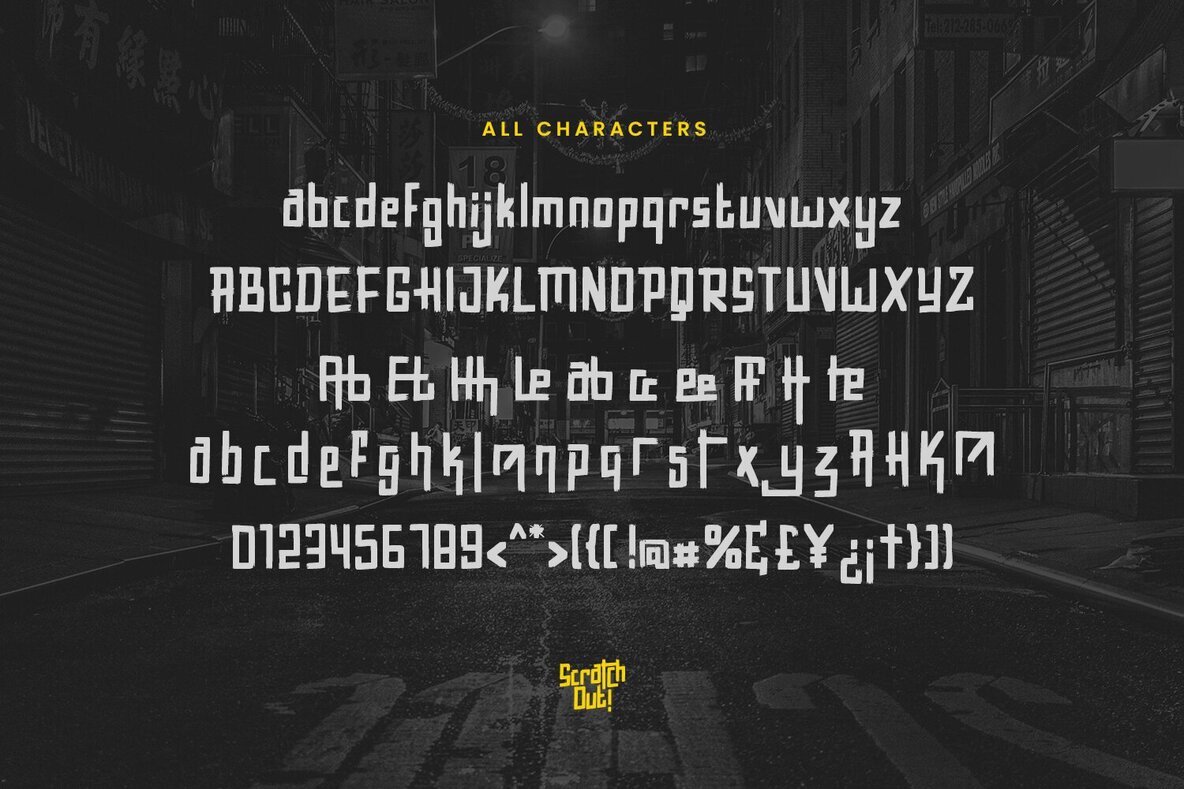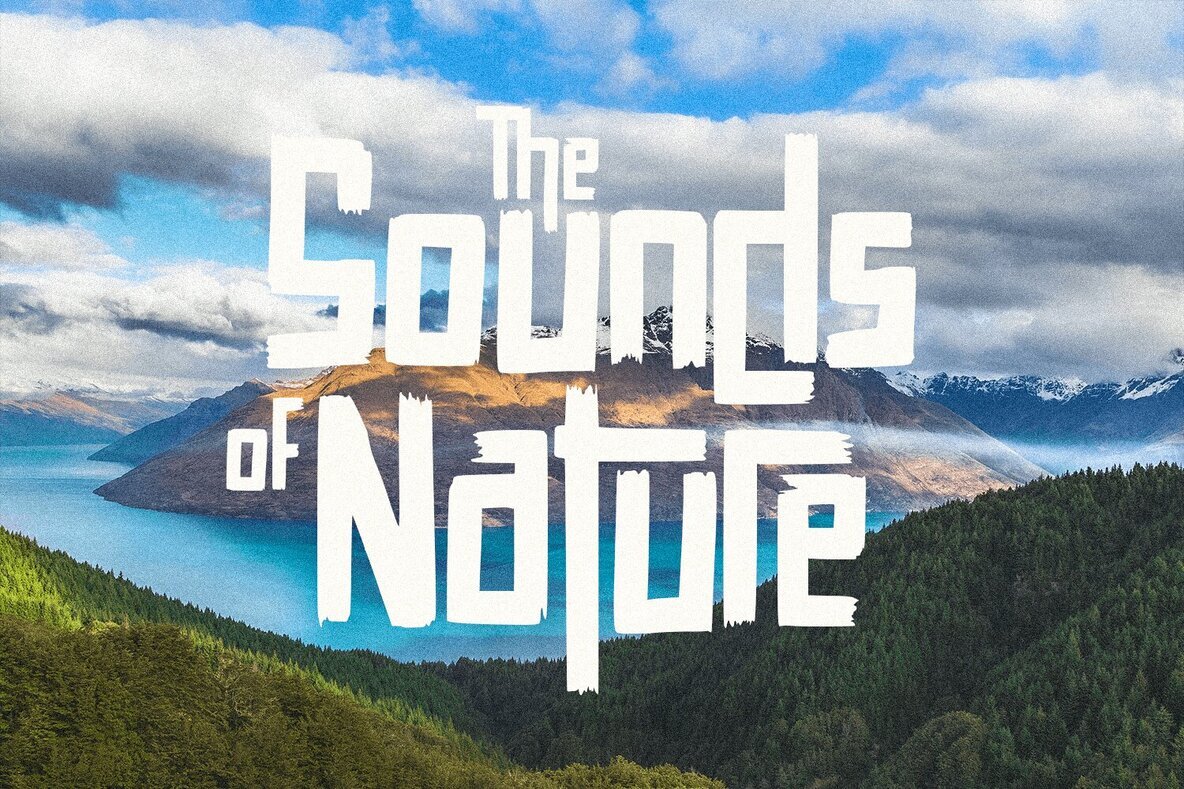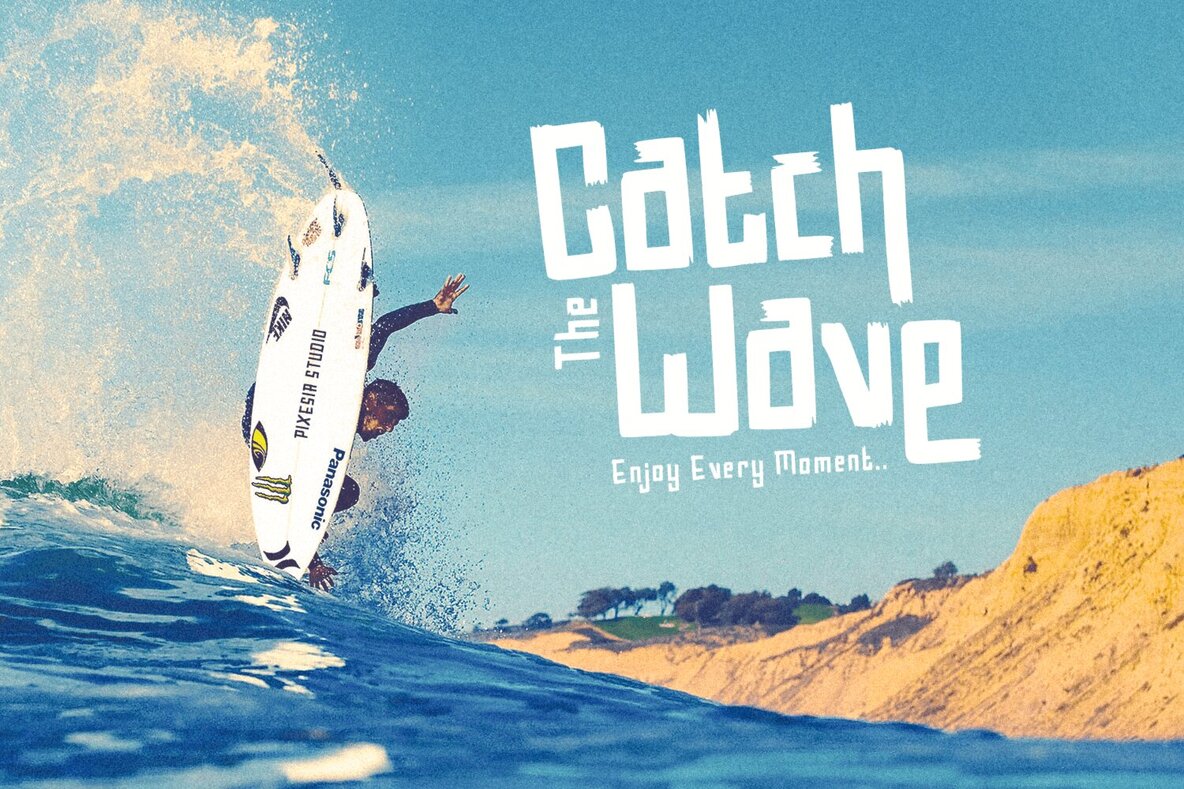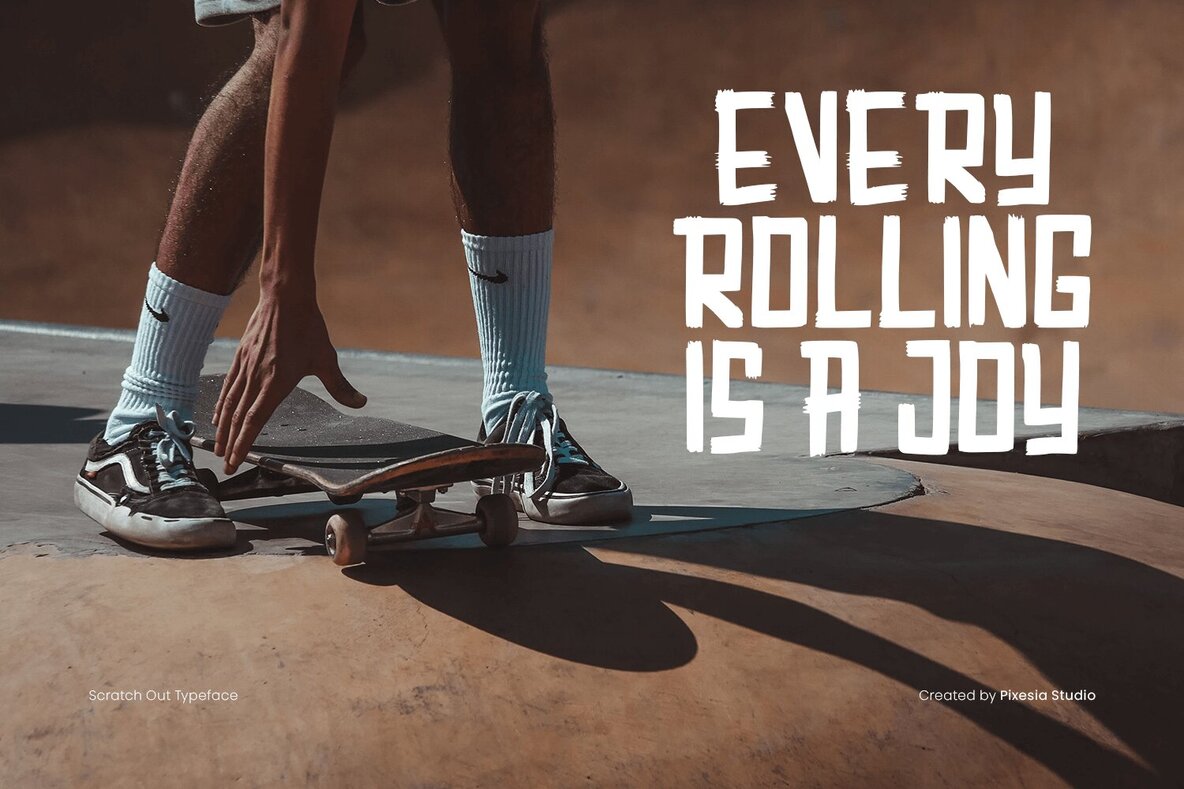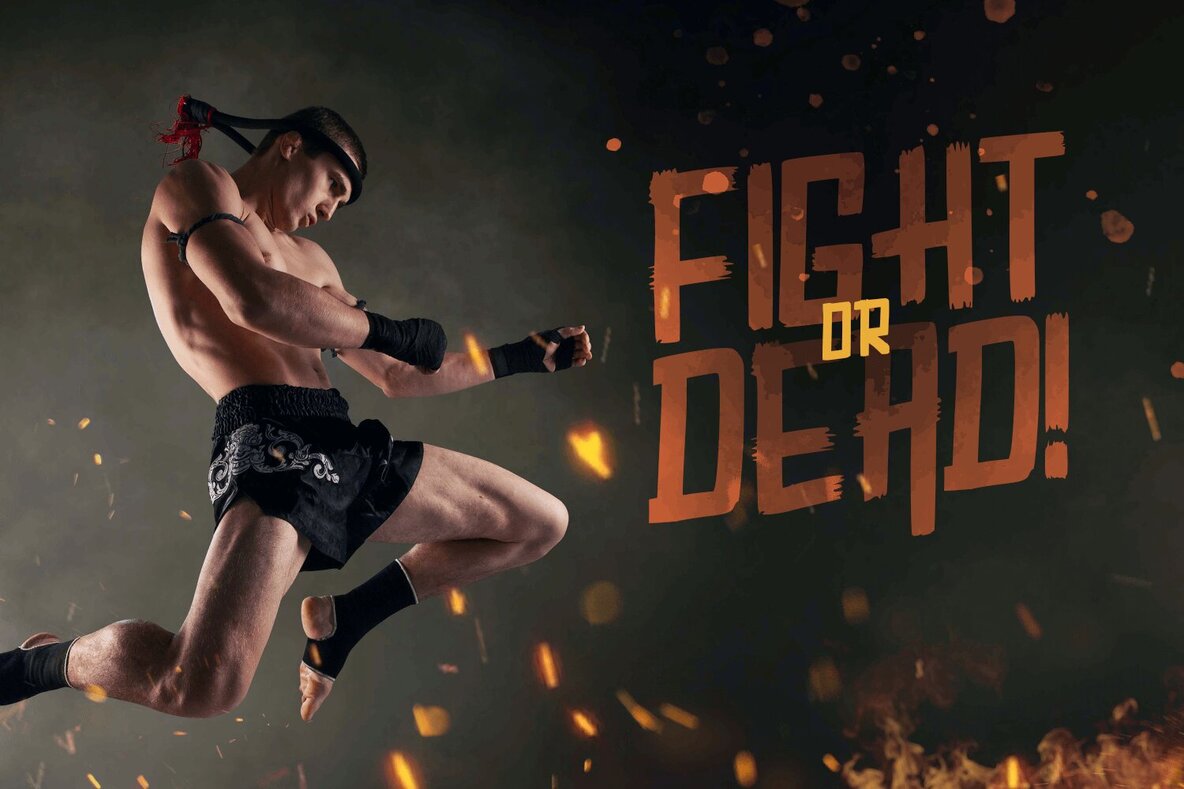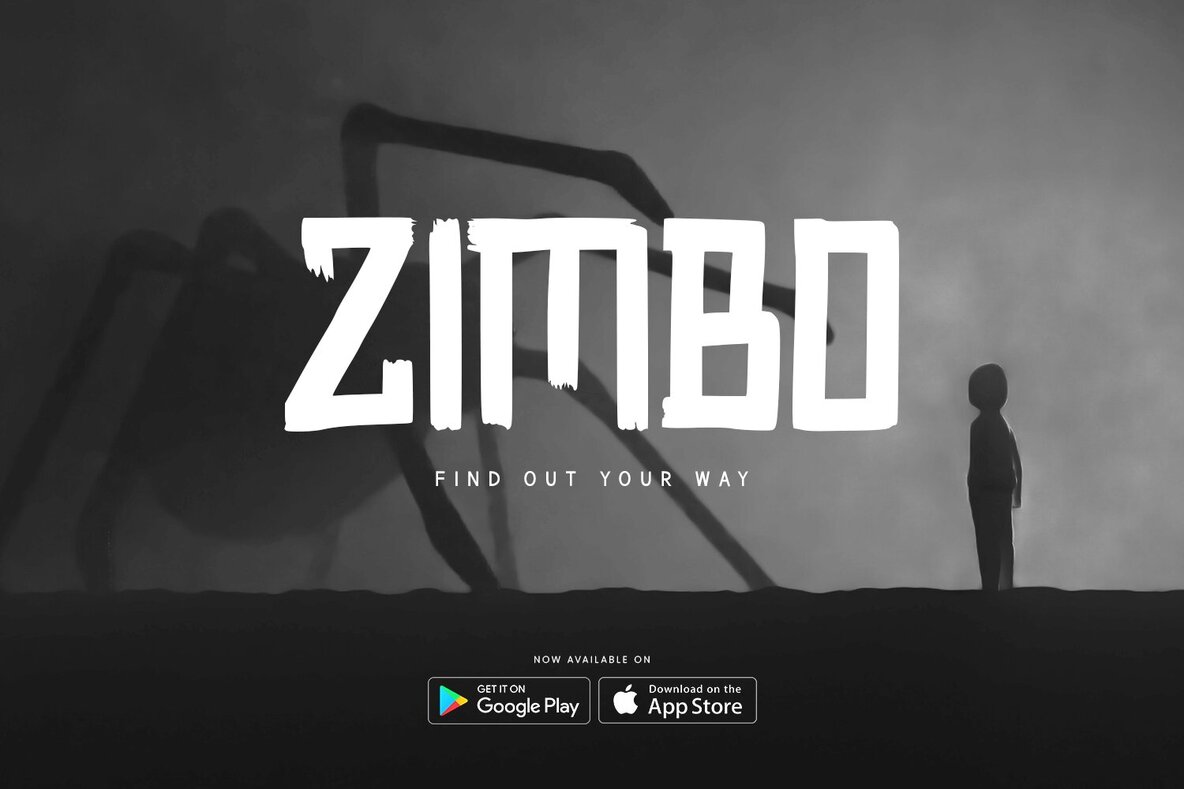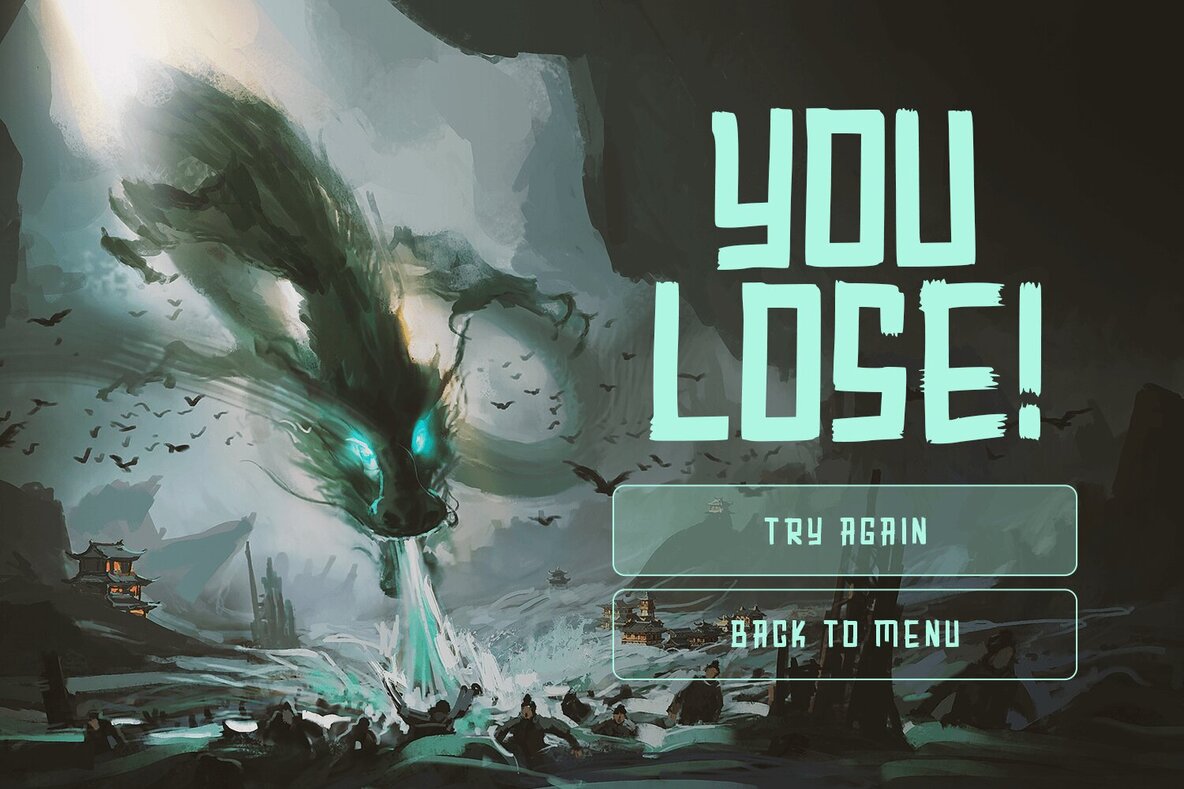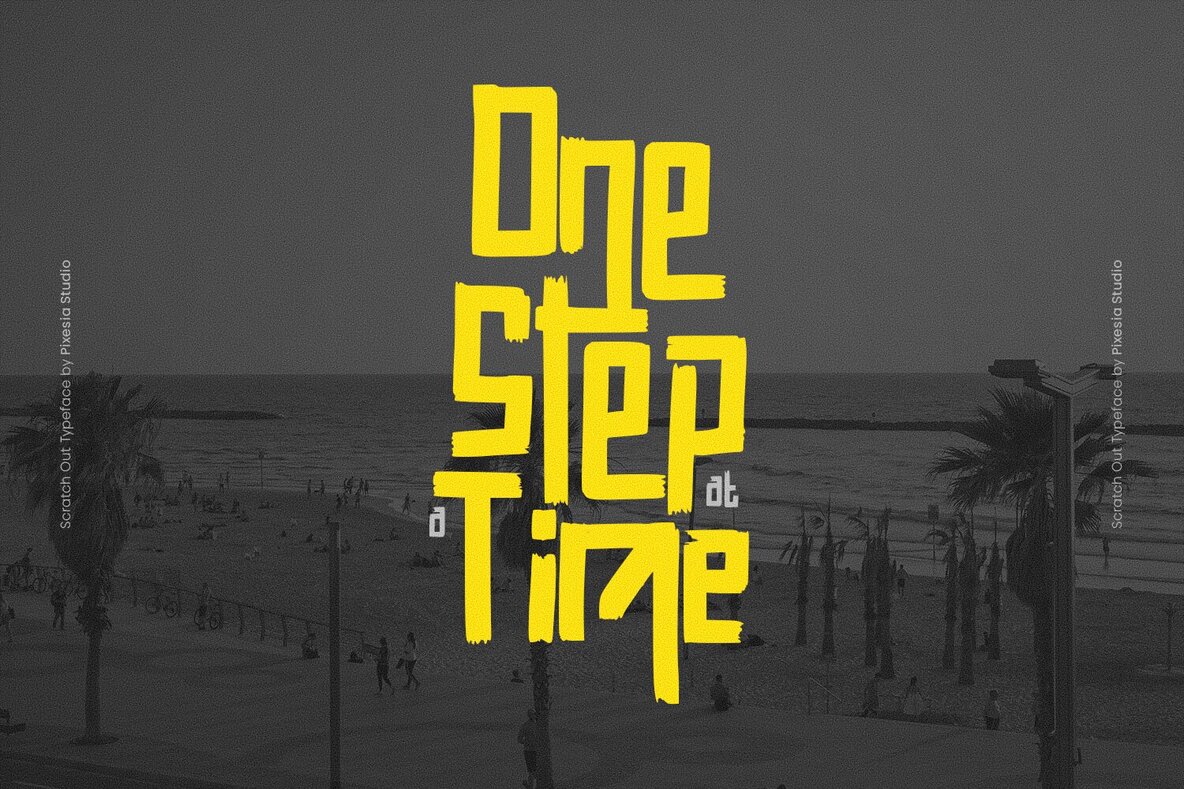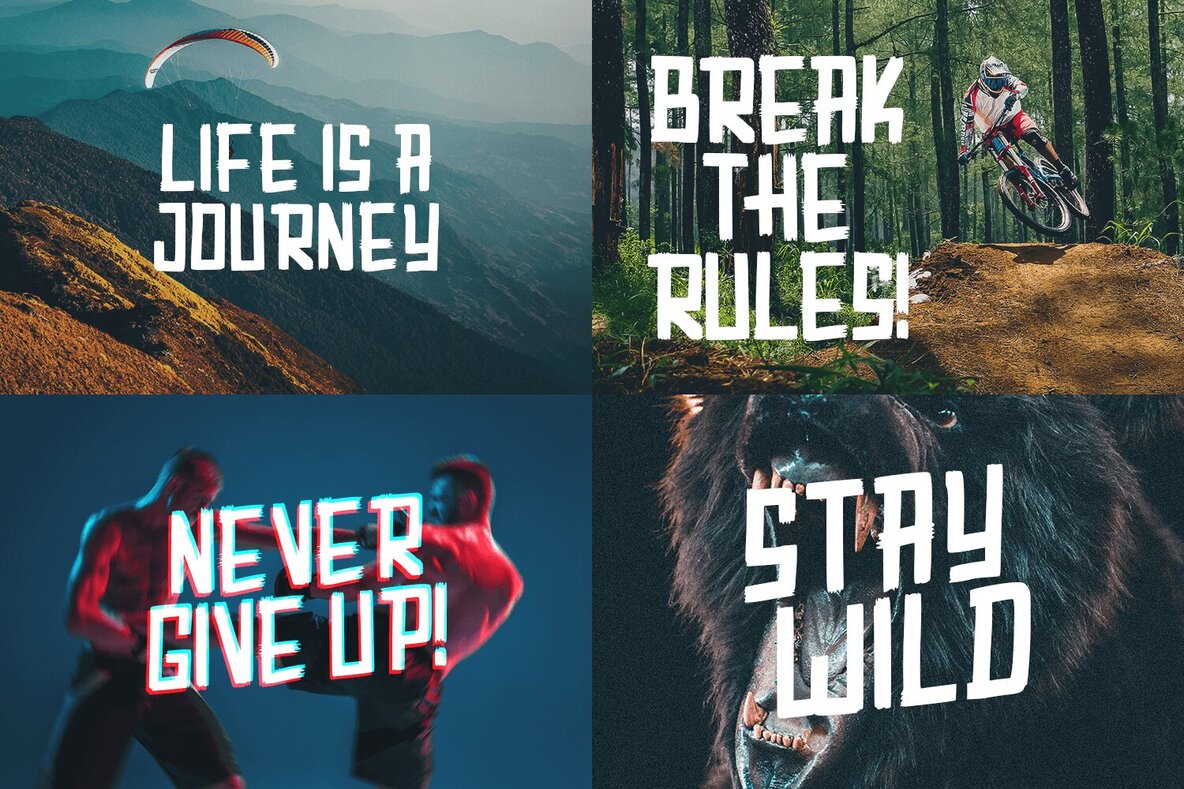
Scratch Out Font
Scratch Out by Pixesia Studio is a dynamic brush font, perfect for infusing an urban edge into your designs. Its expressive brush strokes exude a handmade, authentic vibe, making it ideal for streetwear brands, music album covers, posters, and more.Scratch Out: An Edgy, Modern Brush Font